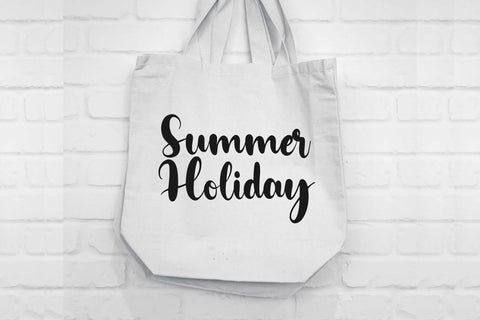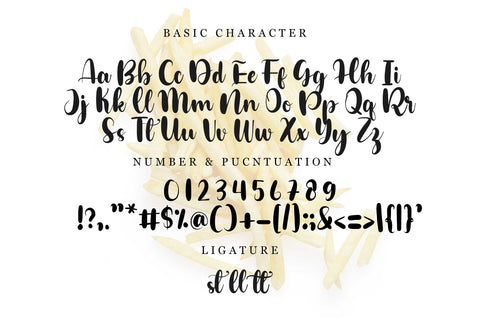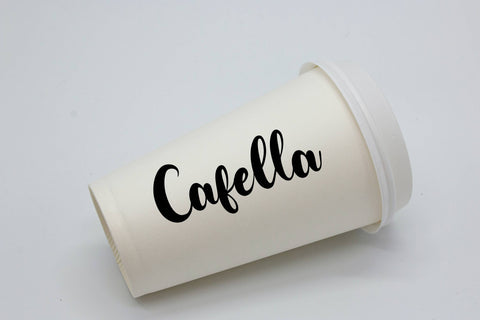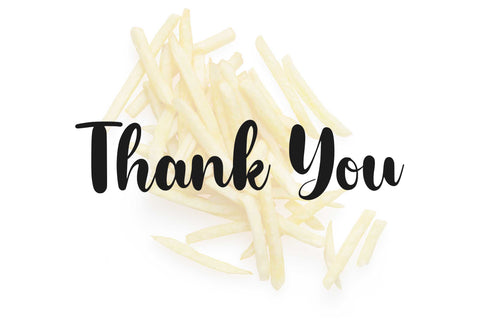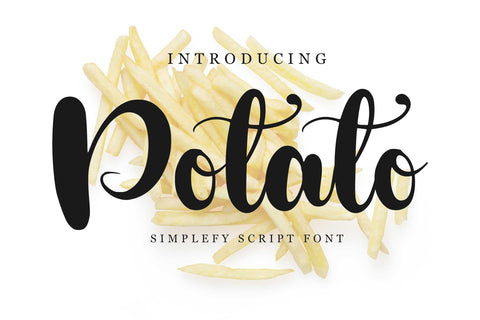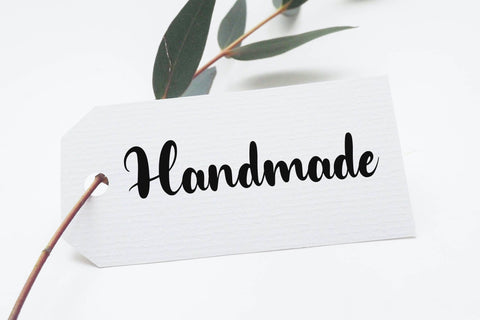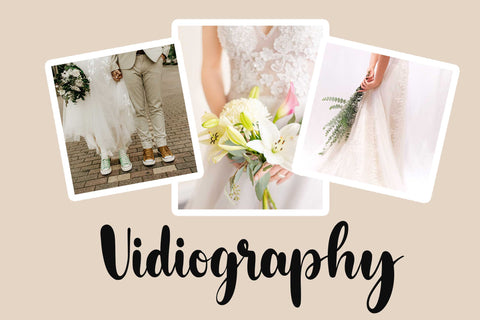
Potato
Potato is a simple and versatile handwritten font. Its simple style makes it a favorite of many people, this is the choice for those of you who need a simple yet versatile font. And use it to create beautiful wedding invitations, beautiful stationary art, social media posts. interesting, and more!